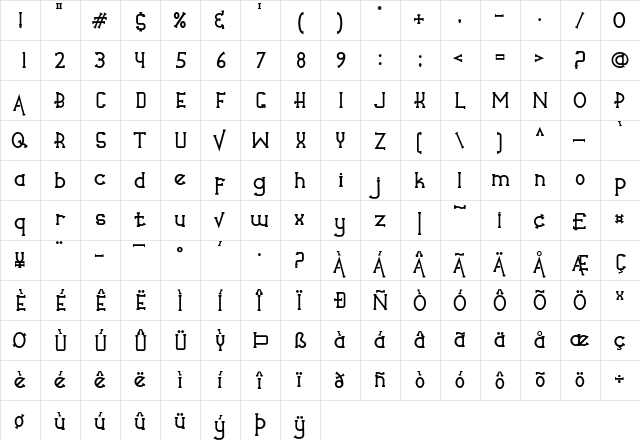
Veruzza Regular
Design Context for Veruzza Typeface
Veruzza is a composed and adaptable typeface that performs quietly and consistently across a wide range of design contexts.